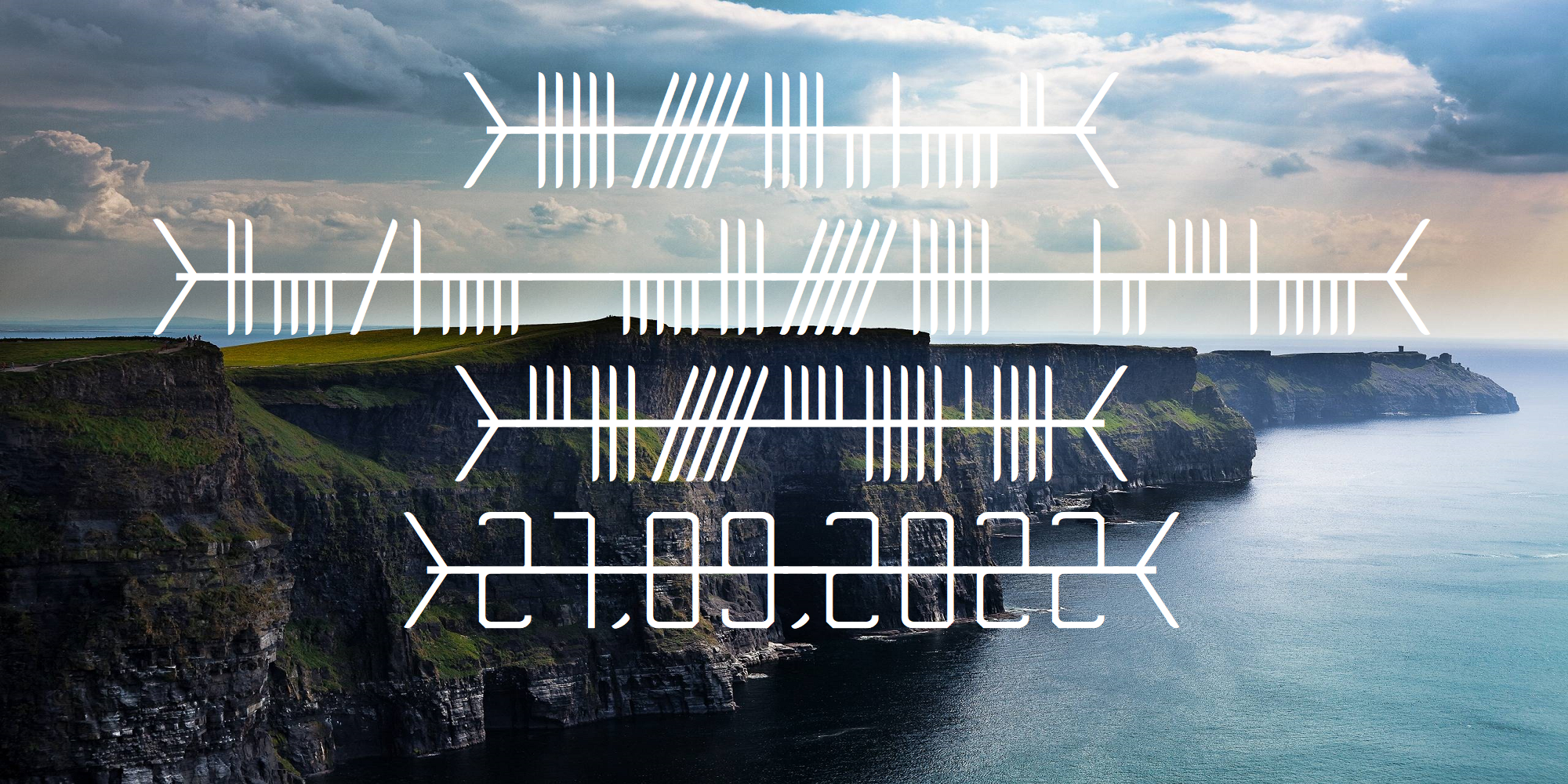
Ongunkan Ogham Font is an exceptional choice for projects that demand a unique, ancient, and deeply historical aesthetic, drawing inspiration from the fascinating Ogham script. It's perfectly suited for historical reconstructions, Celtic-themed designs, fantasy world-building, archaeological displays, and any application where you want to evoke a sense of mystique, ancient knowledge, and a distinctive, linear form of writing. Imagine it gracing a historical exhibit's signage, adding an authentic touch to a Celtic knotwork design, or giving a unique, arcane personality to a mystical game's interface. Its vertical, linear strokes and archaic charm ensure your message is conveyed with both curiosity and a profound connection to the past.
What makes Ongunkan Ogham Font so exciting is its remarkable ability to bring a lesser-known ancient script to modern design, offering a truly unique visual alternative. It’s more than just a typeface; it’s a tribute to a historical linguistic system, allowing designers to tap into the powerful aesthetic of early medieval Ireland and Britain. This font doesn't just display text; it tells a story, making every inscription feel significant and imbued with historical weight. It's the ideal tool for projects that demand a unique blend of historical authenticity and an intriguing, unconventional visual presence.
The Ongunkan Ogham Font family typically focuses on delivering its distinct linear and ancient style with precision. You might find a standard Regular weight that embodies its core design, along with potential variations that enhance its historical appearance, such as slight textural effects or stylistic alterations for specific characters. These nuances ensure that Ongunkan Ogham Font Free Download can be the cornerstone of a truly unique and powerfully thematic visual identity, helping your designs stand out with an undeniable sense of character and ancient allure.